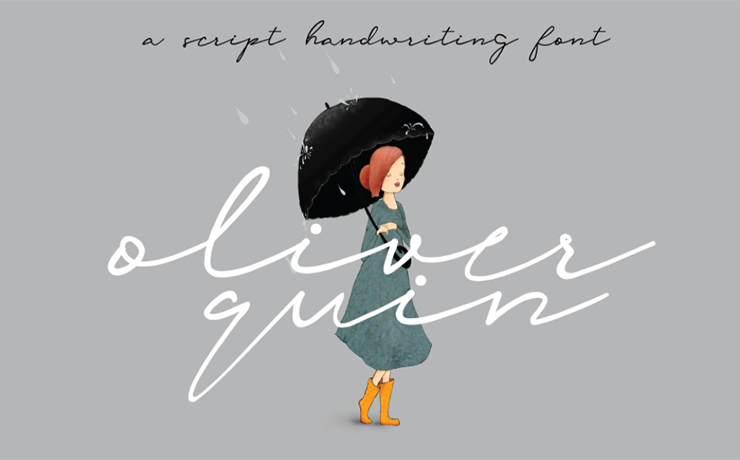
If you’re looking for a flowing handwritten script typeface with its own signature style then Oliver Quin Font could be a fantastic choice. This handwritten font set covers your basic letters and numbers.
This elegant stylish typeface works well for logos and branding, wedding designs, social media posts, advertisements, posters, watermark photography, etc.
You will find the whole structure in a crescendo way because it was made without proper foundations. And the best part about it is the extra sweep in this handwritten font by the designer.
This makes it more beautiful and cool. This font was designed by Sigit Nur Wicaksono and published by Gittype.
This is made with the basic felt pen using bold and sharp moves while writing.
This is a really memorable choice like logos & branding, wedding designs, signatures, signs, social media posts, advertisements, posters, flyers, business cards, headers, watermark photography, etc. happy design.
Oliver Quin Font is a pretty typeface that comes in a single version. The designer has converted all the characters to digital formats such as TTF.